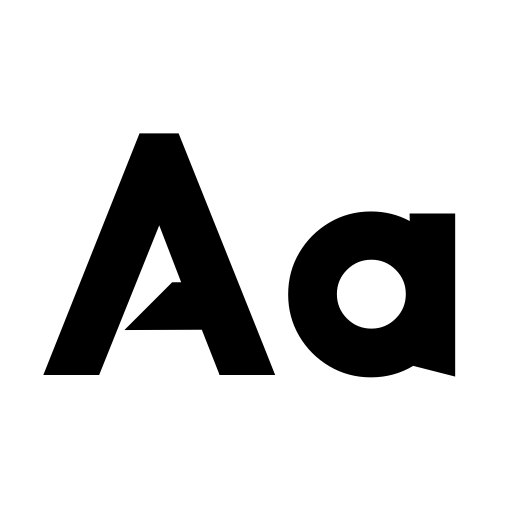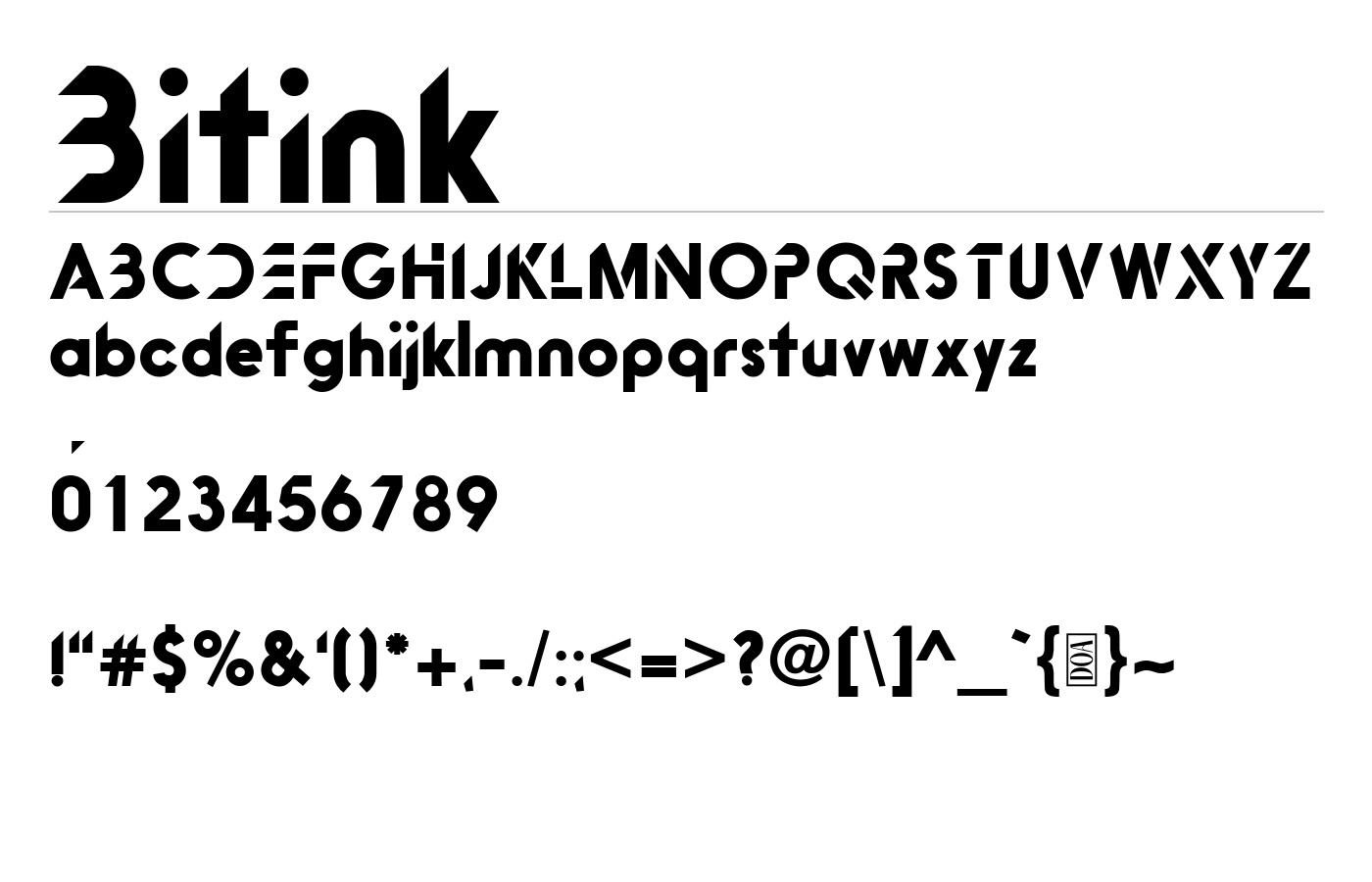
Bitink is a bold, geometric sans serif font with a futuristic and tech-inspired style. Its strong lines and unique angular cuts give it a modern, edgy feel, making it ideal for striking headlines, logos, and branding that want to convey innovation and confidence. This font stands out in digital and creative projects where a sharp, contemporary look is needed.
Bitink Font